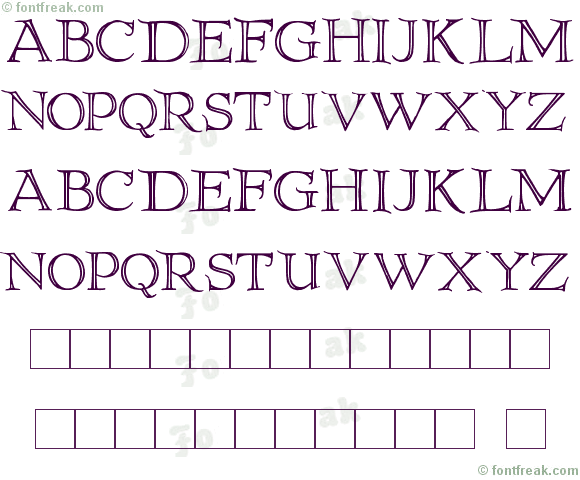
Priory
The Priory font, designed by Paul Lloyd in 1995, is a unique display typeface characterized by its serif style. This font stands out with its elegant, flowing lines and distinct letterforms that reflect a classic yet modern aesthetic. The stroke weight is moderately consistent, with subtle contrasts that add depth and sophistication to each character. The spacing between letters is carefully considered, allowing for a harmonious visual flow that enhances readability while maintaining a decorative flair.
Priory is particularly well-suited for a variety of creative applications. Its ornate design makes it an excellent choice for wedding invitations, where it can convey a sense of romance and elegance. Additionally, the font can be effectively used in movie posters, adding a dramatic and artistic touch that captures attention. Restaurant menus can also benefit from its unique character, providing a stylish presentation that reflects the ambiance of the dining experience. Furthermore, small business branding, including logos and promotional materials, can leverage Priory's distinctive style to create a memorable impression.
In a landscape crowded with fonts, Priory stands out due to its unique blend of elegance and readability. It captures the essence of classic design while remaining versatile enough for modern applications. Whether you’re crafting a heartfelt invitation or designing an eye-catching poster, the Priory font free download is a valuable addition to any designer’s toolkit, promising to enhance the visual appeal of your projects.